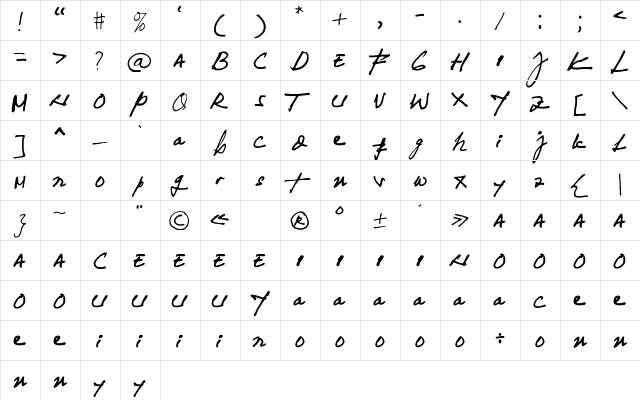
Yuqato Handwriting Regular
Design Context for Yuqato Handwriting Typeface
Yuqato Handwriting flows with the natural rhythm of handwritten lettering, making it ideal for designs that call for warmth and personal expression.
Font Pairing: Combine Yuqato Handwriting with a simple geometric sans for maximum contrast — the tension between flowing curves and clean structure is a classic typographic pairing.
Pro Tip: Pair Yuqato Handwriting with a clean sans-serif for supporting text. The contrast between fluid script and geometric structure creates an elegant typographic hierarchy.